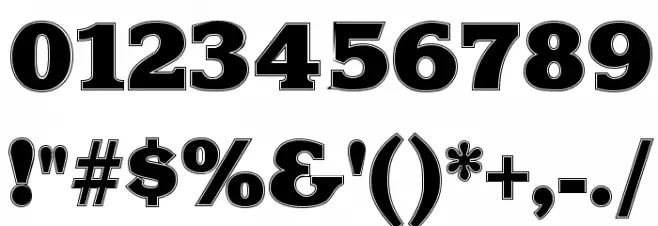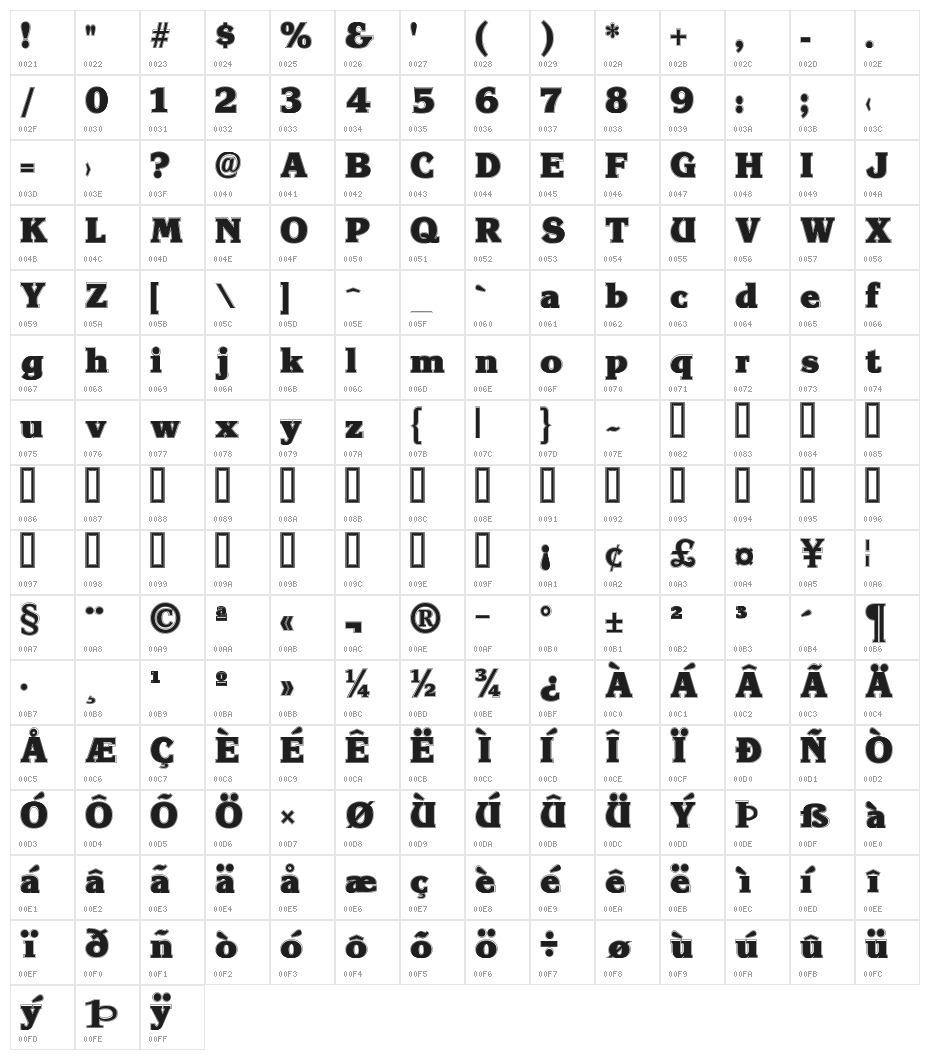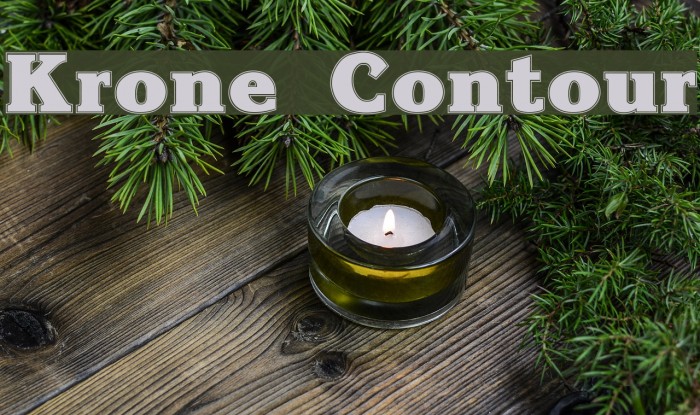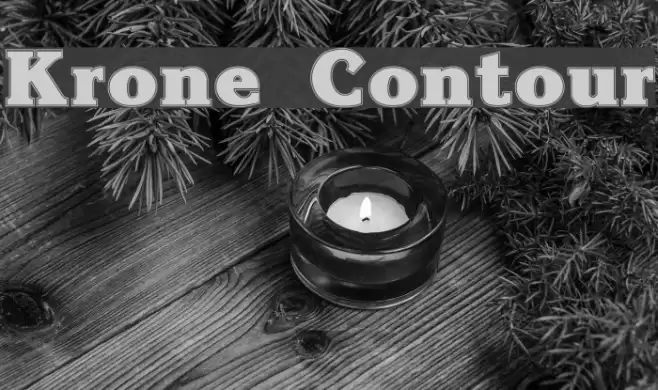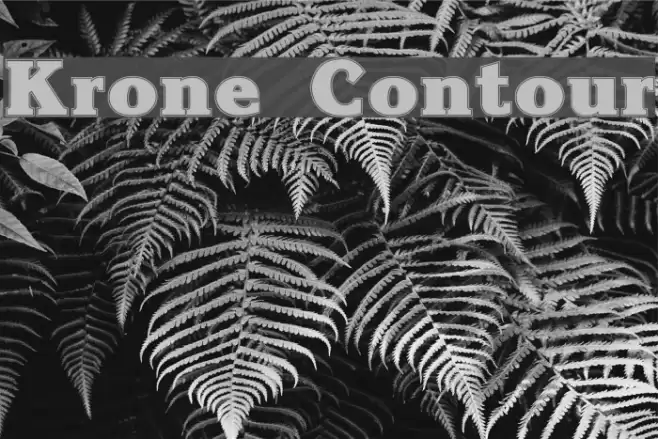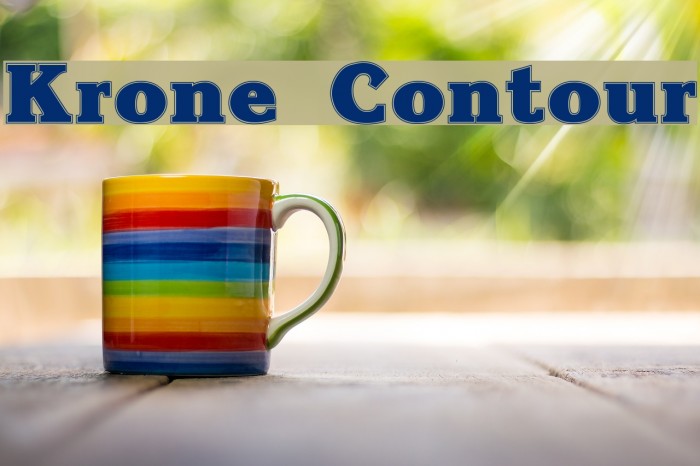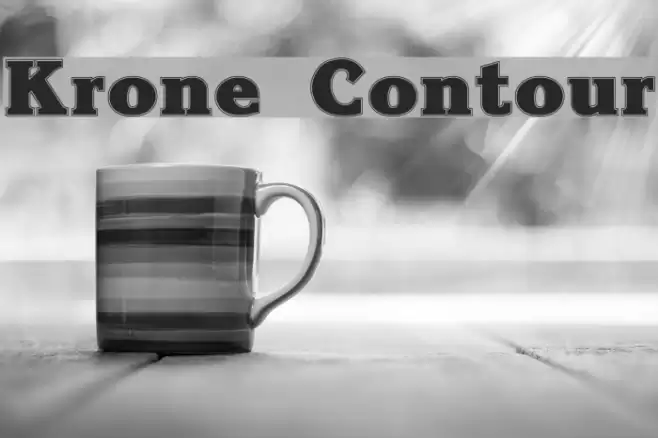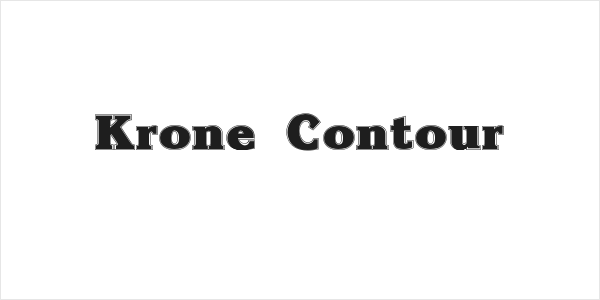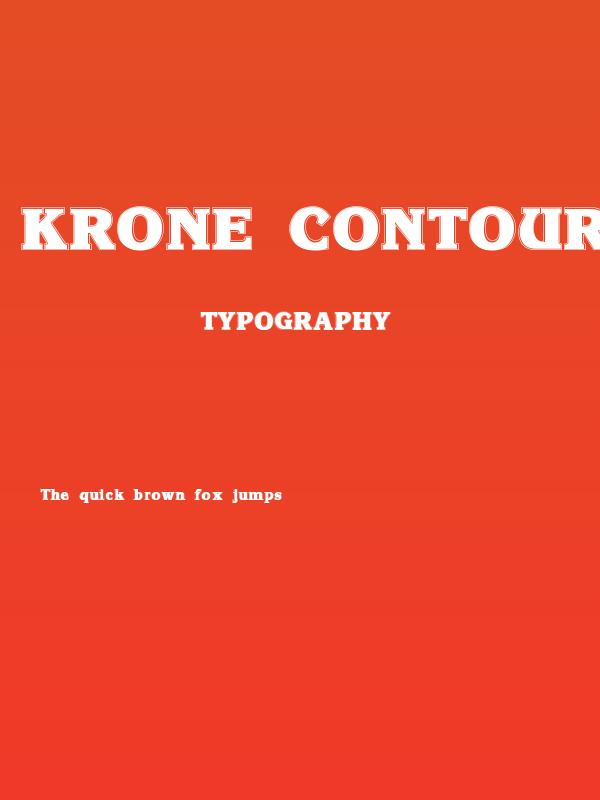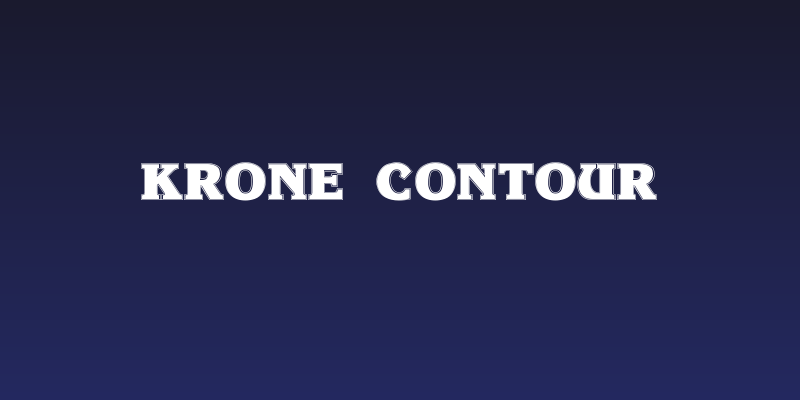
Krone Contour Font
Krone Contour Description
This font features a bold and commanding presence with its thick, block-like characters and a distinct contour outline that adds depth and dimension. The uppercase and lowercase letters maintain a consistent weight, providing a strong visual impact. The numerals are equally robust, ensuring clarity and readability. Special characters are designed with the same boldness, making them stand out effectively. The overall style is reminiscent of vintage signage or poster fonts, with a modern twist that makes it versatile for various design applications.
| Overall Style | Vintage, Modern |
| Proposed Projects | Ideal for branding, headlines, posters, and any design requiring a strong, impactful typeface. |